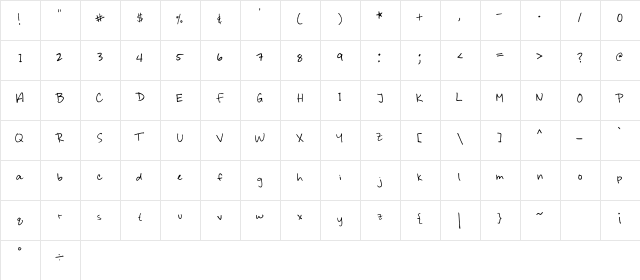
Lyds Font Regular
| Foundry | Lydia Supple |
| Designer | Lydia Supple |
Design Context for Lyds Font Typeface
Lyds Font is a composed and adaptable typeface that performs quietly and consistently across a wide range of design contexts.